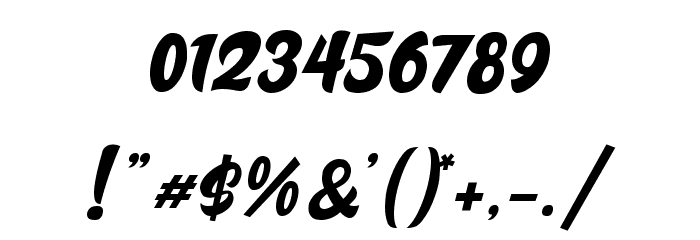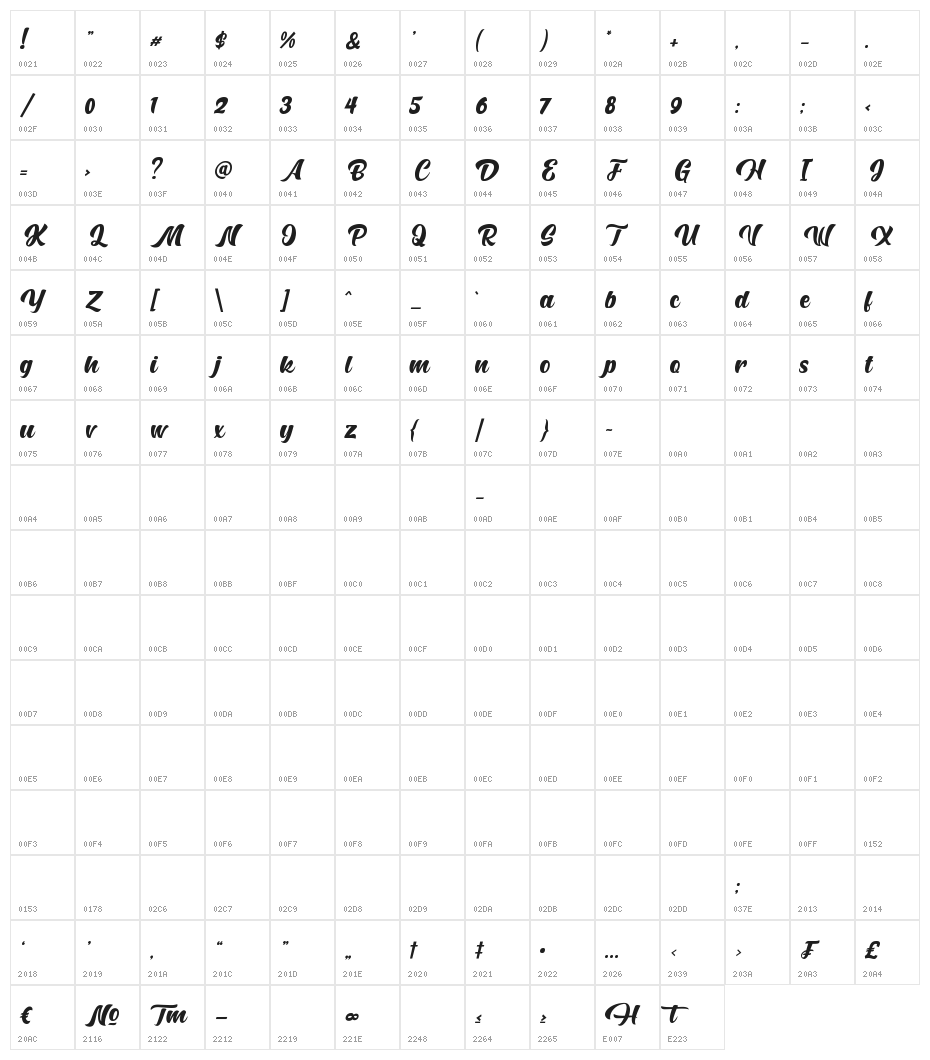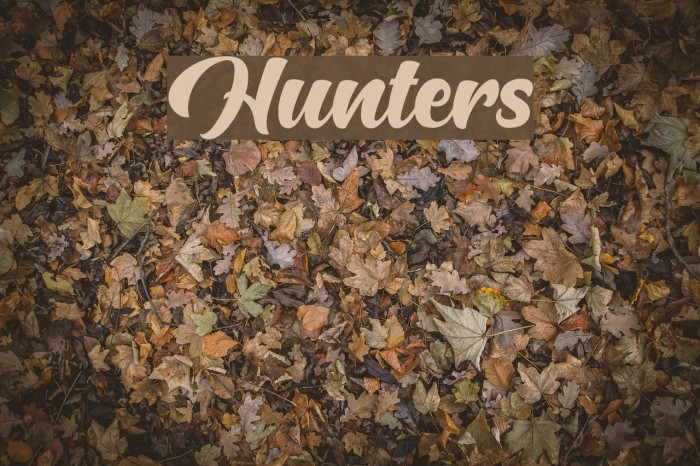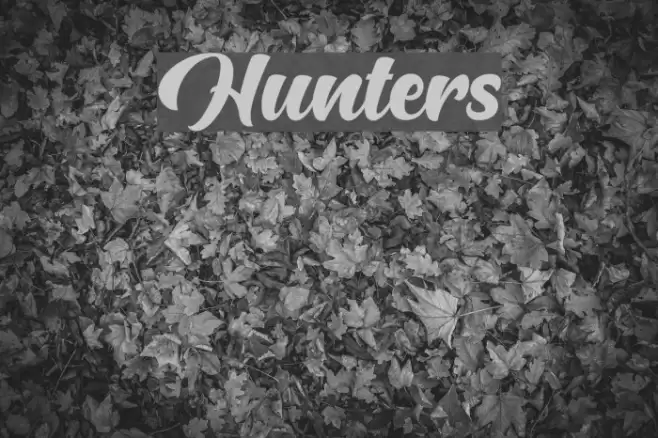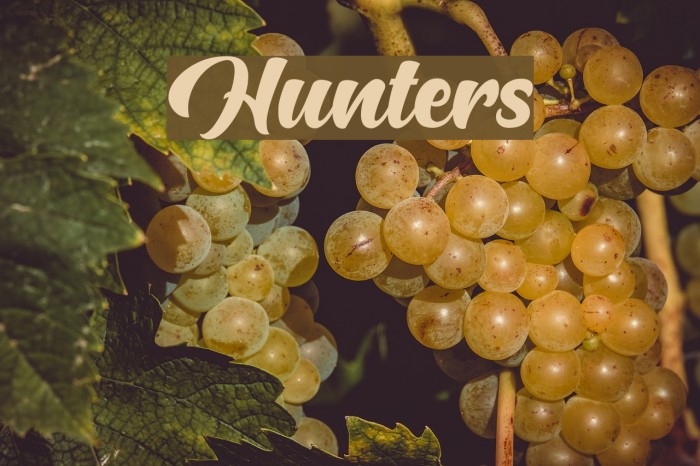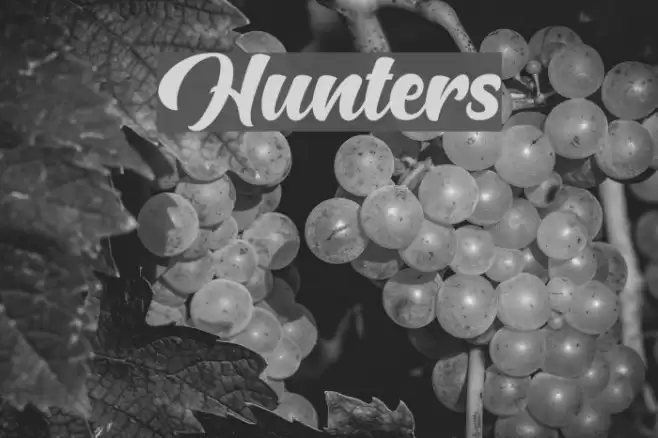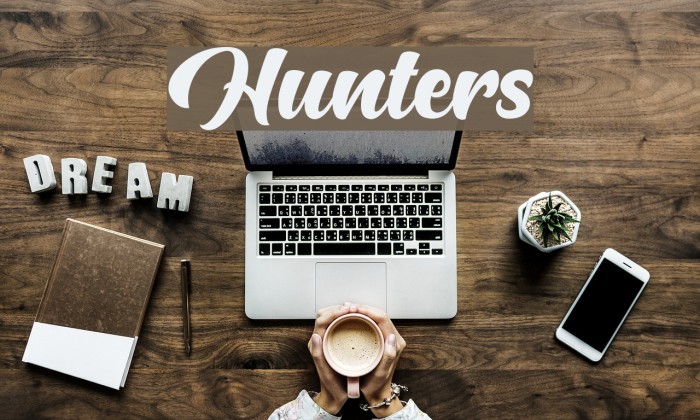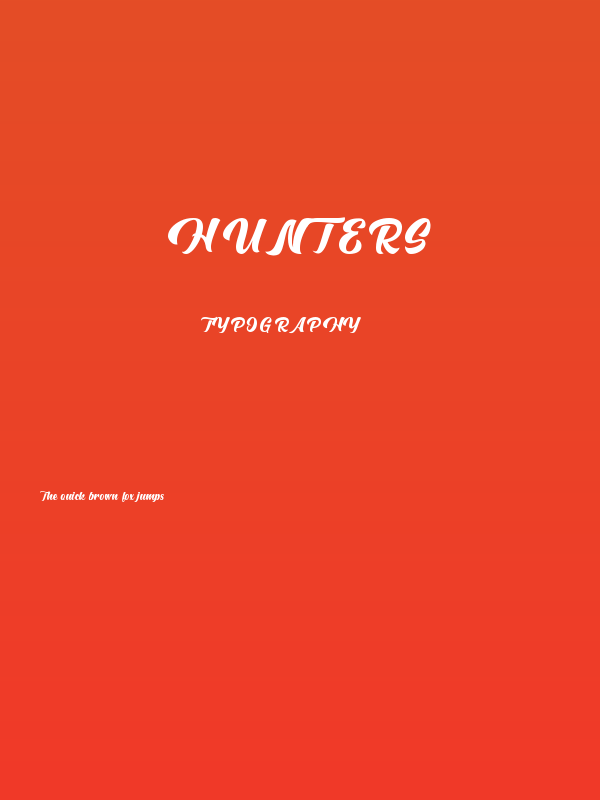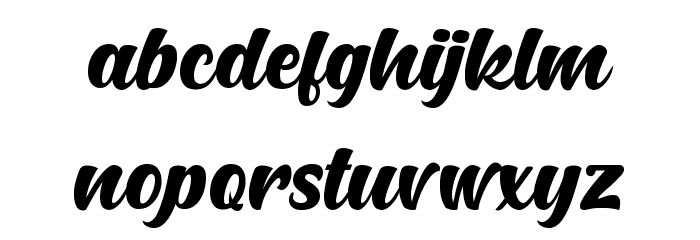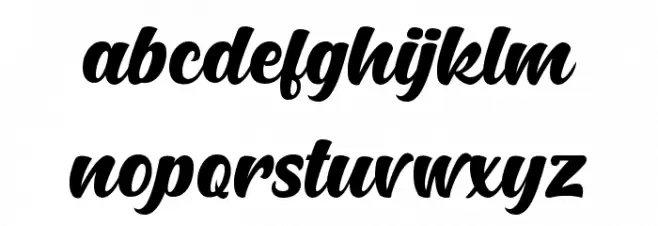
Hunters Font
Hunters Description
This font features a bold and flowing script style, characterized by its smooth, cursive letterforms that convey a sense of elegance and fluidity. The uppercase letters are slightly more elaborate, with sweeping curves and a consistent stroke width that adds to its decorative appeal. The lowercase letters maintain a cohesive look with rounded edges and a slight slant, enhancing readability while retaining the script's artistic flair. The numerals are well-integrated, matching the style of the alphabet with their rounded and flowing design. Special characters are included, maintaining the same stylistic elements, making this font versatile for various uses.
| Proposed Projects | Ideal for wedding invitations, greeting cards, branding projects, and elegant logo designs. |